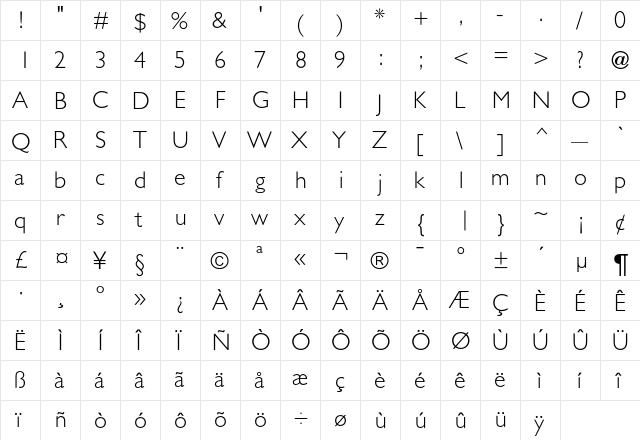
Gentle SansLight
Design Context for Gentle Typeface
Gentle is a composed and adaptable typeface that performs quietly and consistently across a wide range of design contexts. The delicate stroke weight brings airiness and refinement to layouts.
Pro Tip: Pair Gentle with a font of contrasting weight or personality to build a more expressive typographic hierarchy.